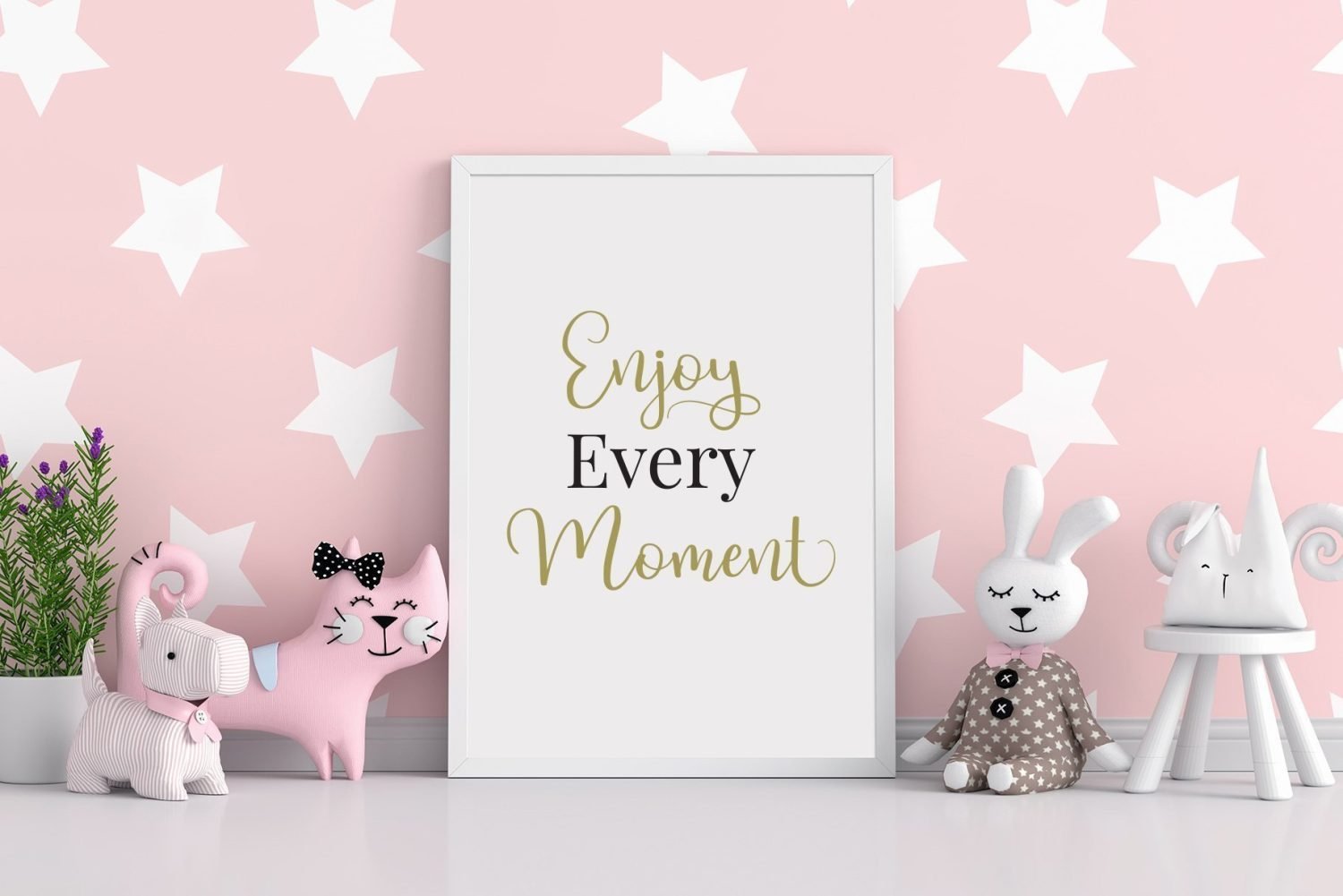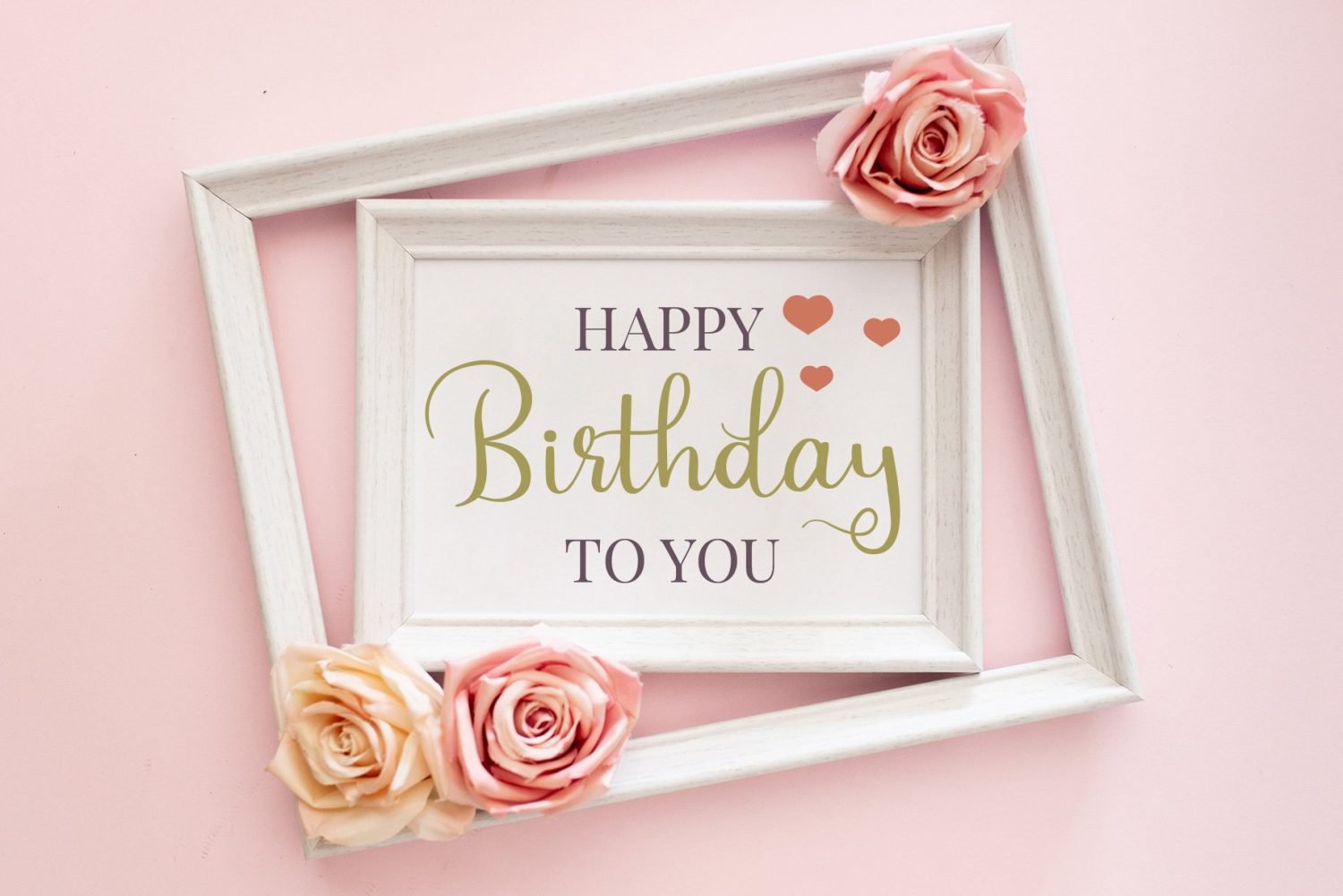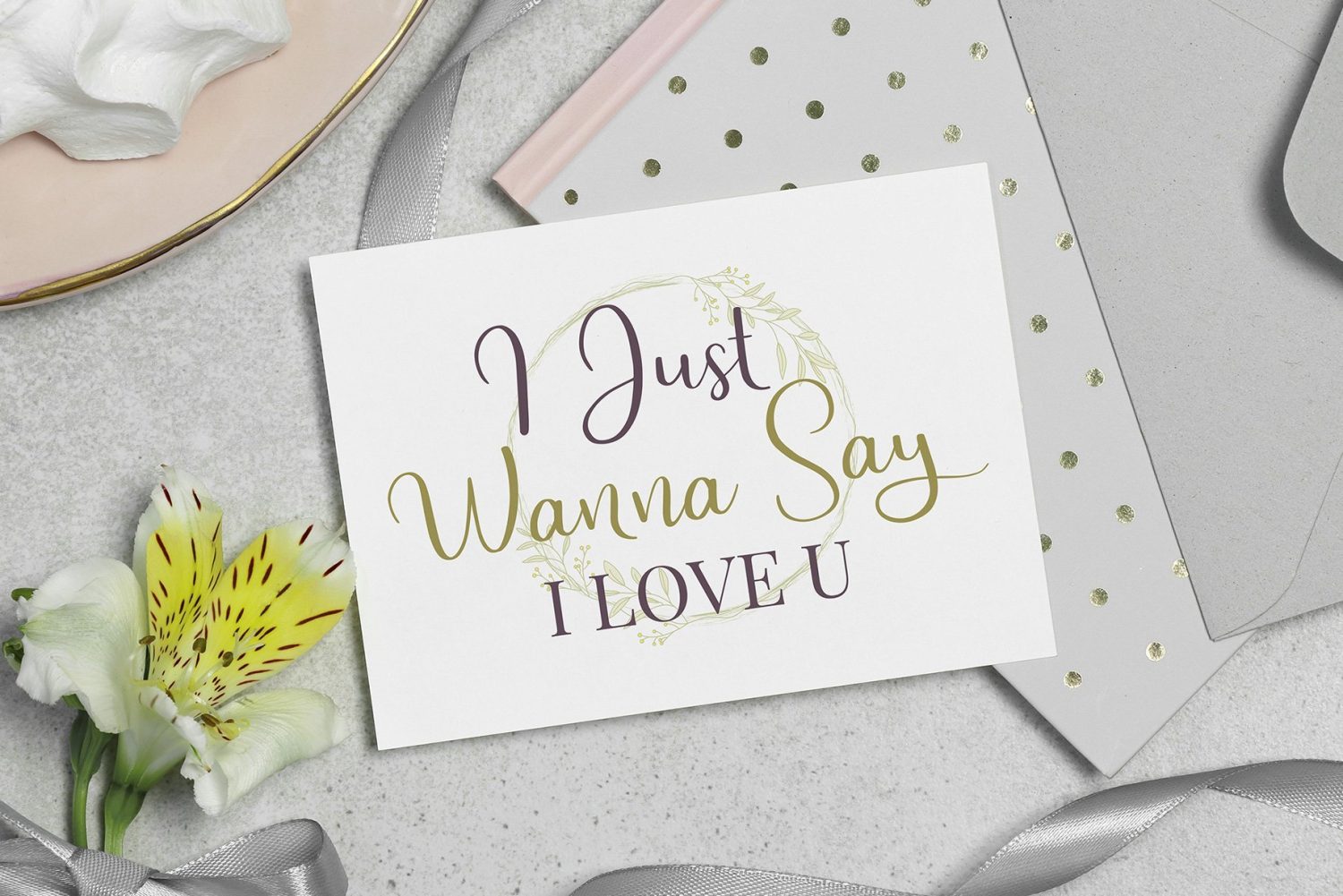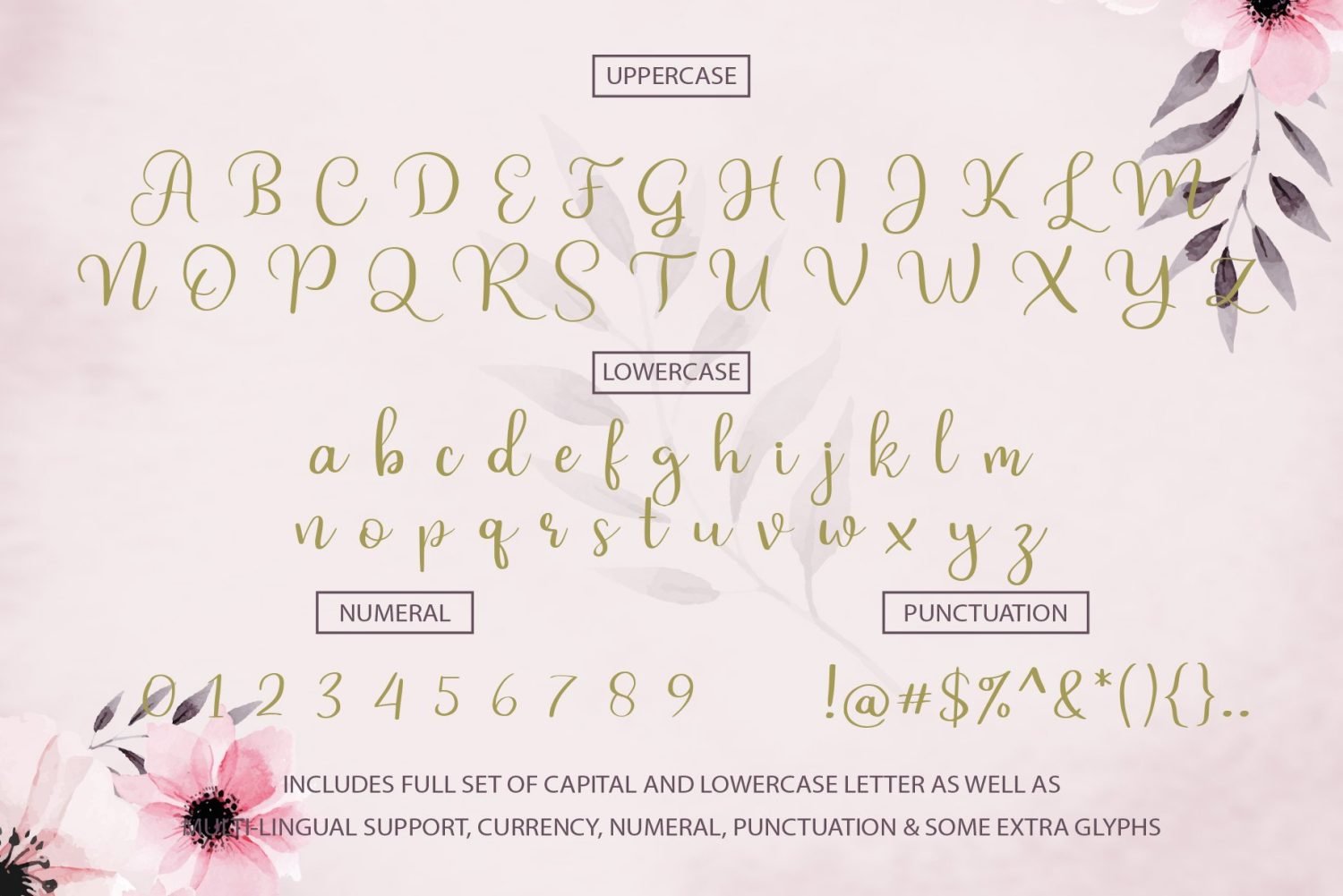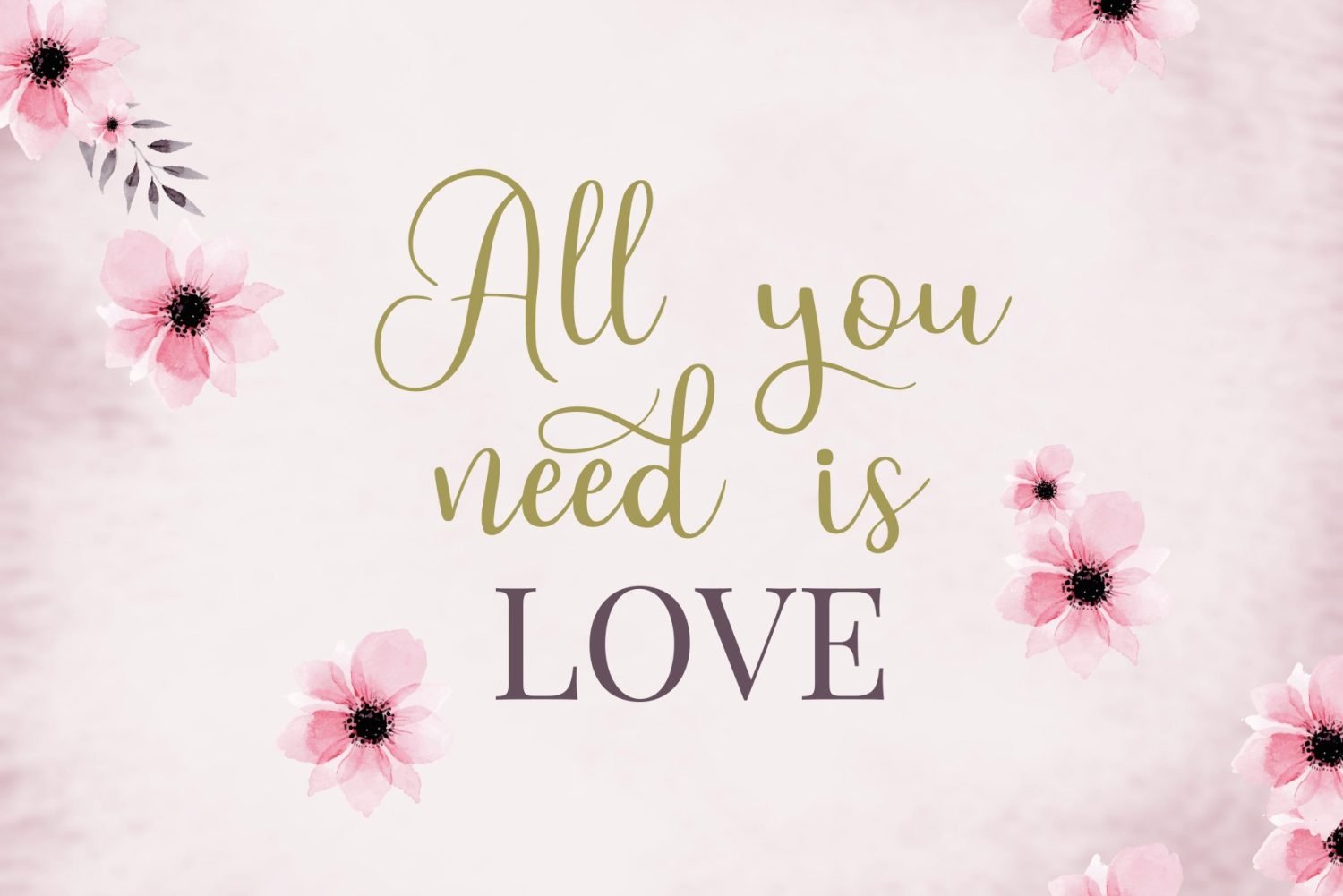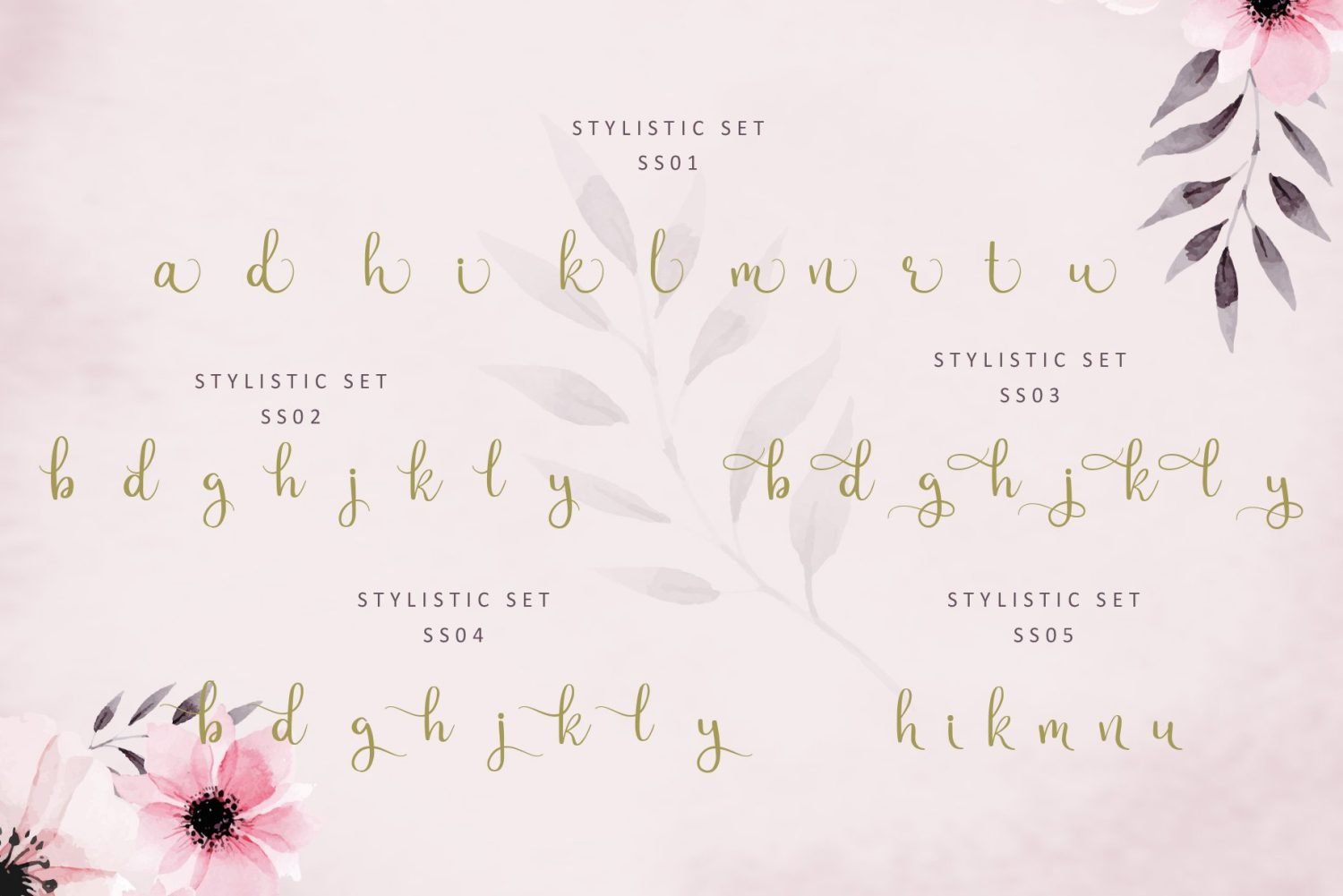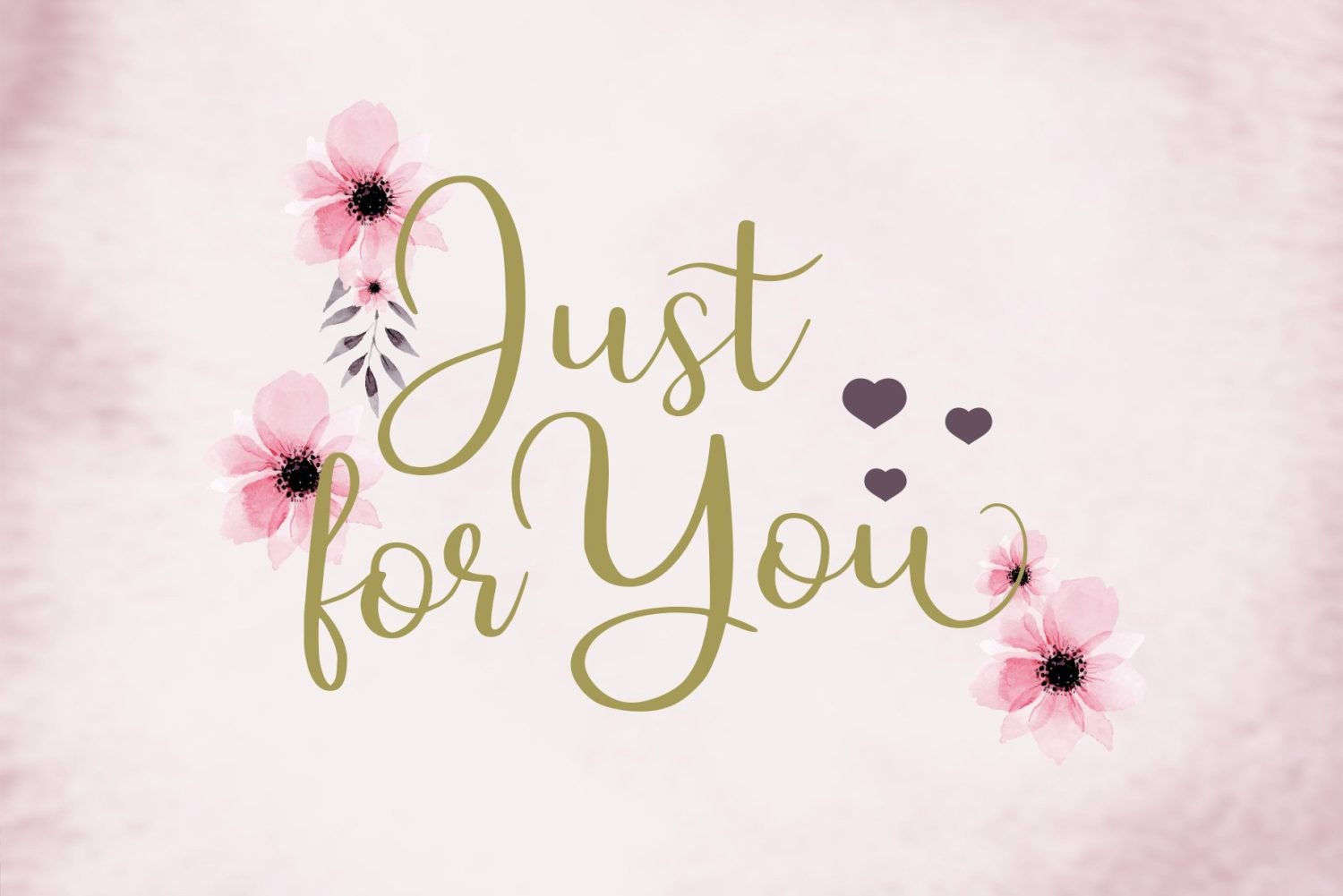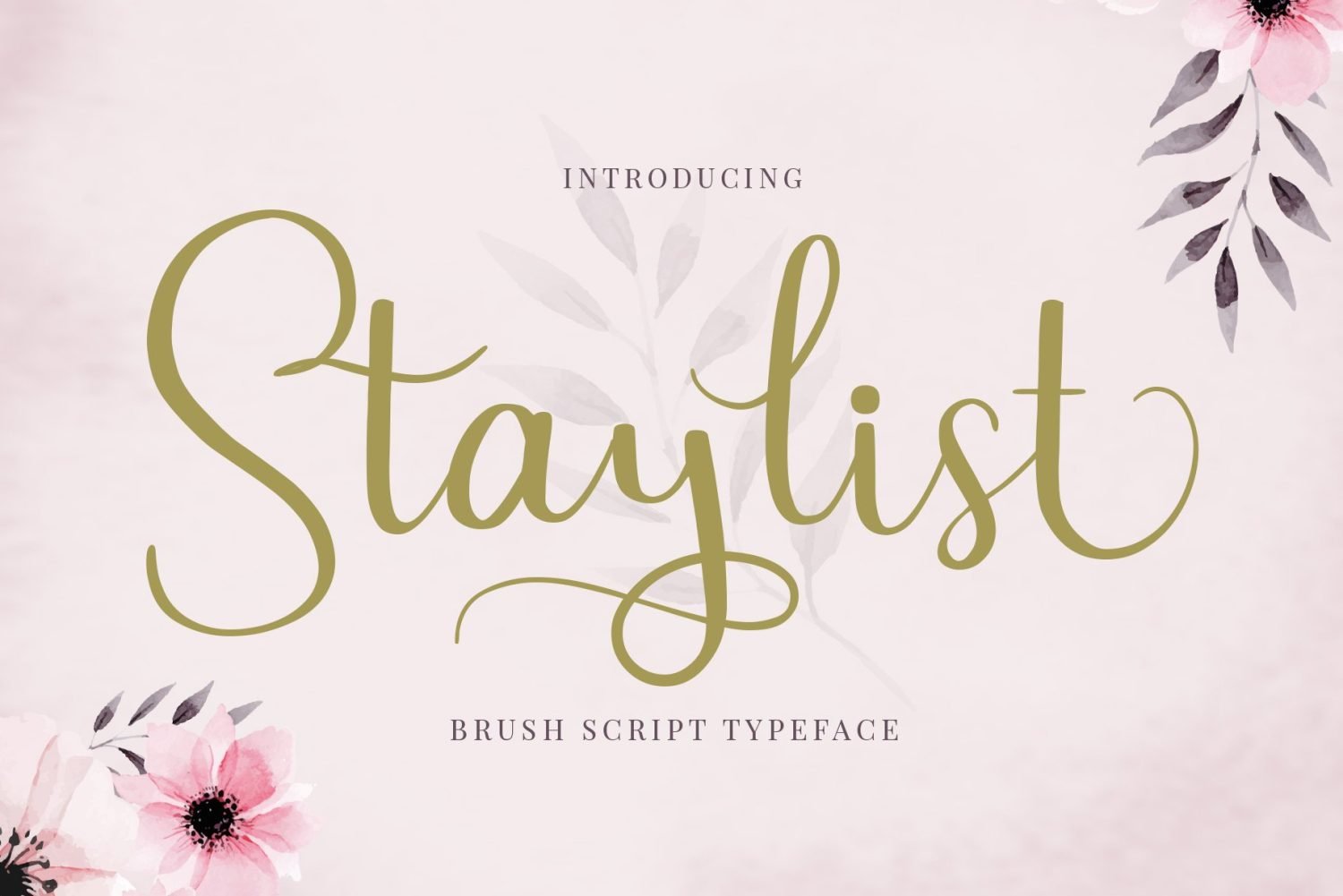
Staylist Script Font
Beautiful font for any project designs. This Staylist Script font can be easily to use with another font. Make invitation card, beautiful card, or just simple design on background.